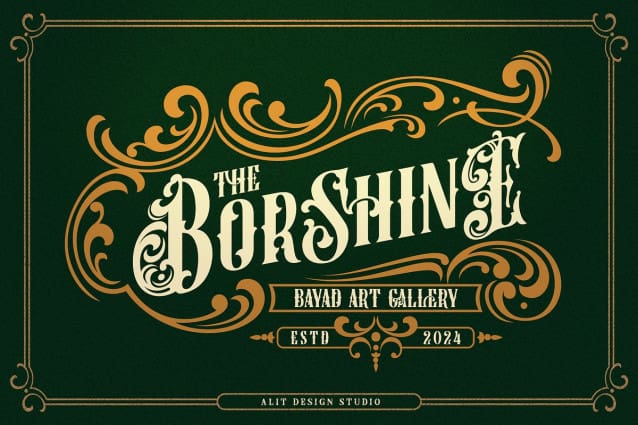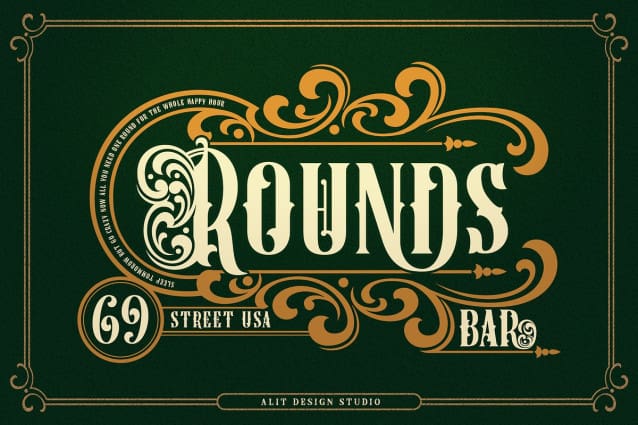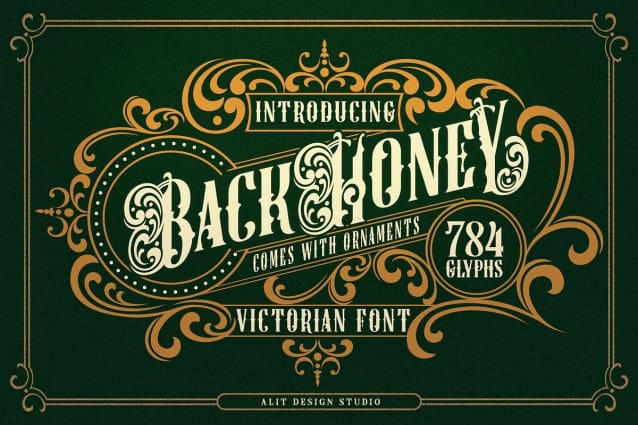
Back Honey Font
Back Honey Font, a meticulously crafted typeface that brings the essence of Victorian elegance to modern design. This luxurious serif font combines vintage charm with intricate ornamentation, ideal for projects that call for a touch of classic sophistication.
Back Honey Victorian Font is designed to capture the opulent details of the Victorian era, offering an array of features that allow endless creativity. With 784 beautifully designed characters, each letter exudes the charm of historical type while still providing exceptional legibility and style.